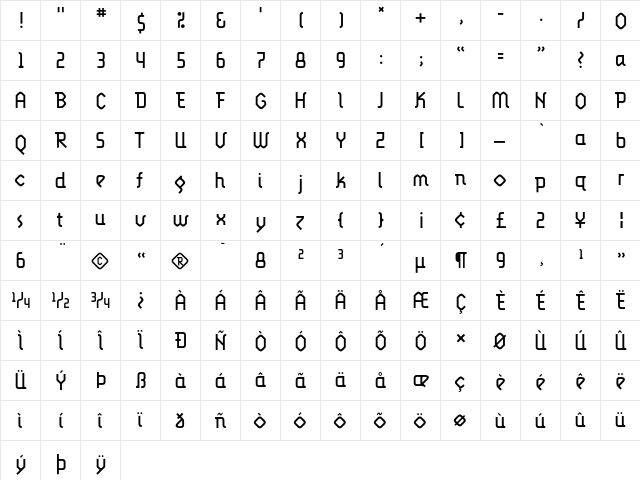
Lunatix Light
Design Context for Lunatix Typeface
Lunatix is a composed and adaptable typeface that performs quietly and consistently across a wide range of design contexts. Its slender proportions lend an understated elegance to any composition.